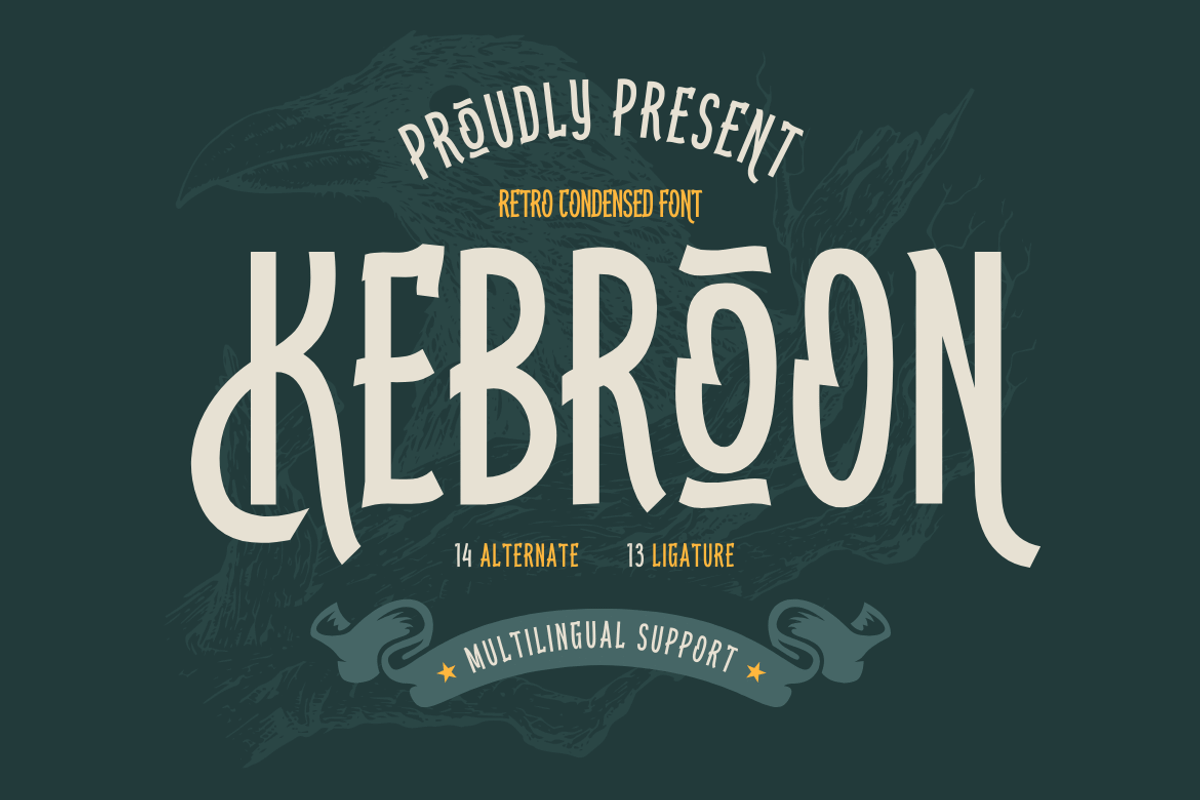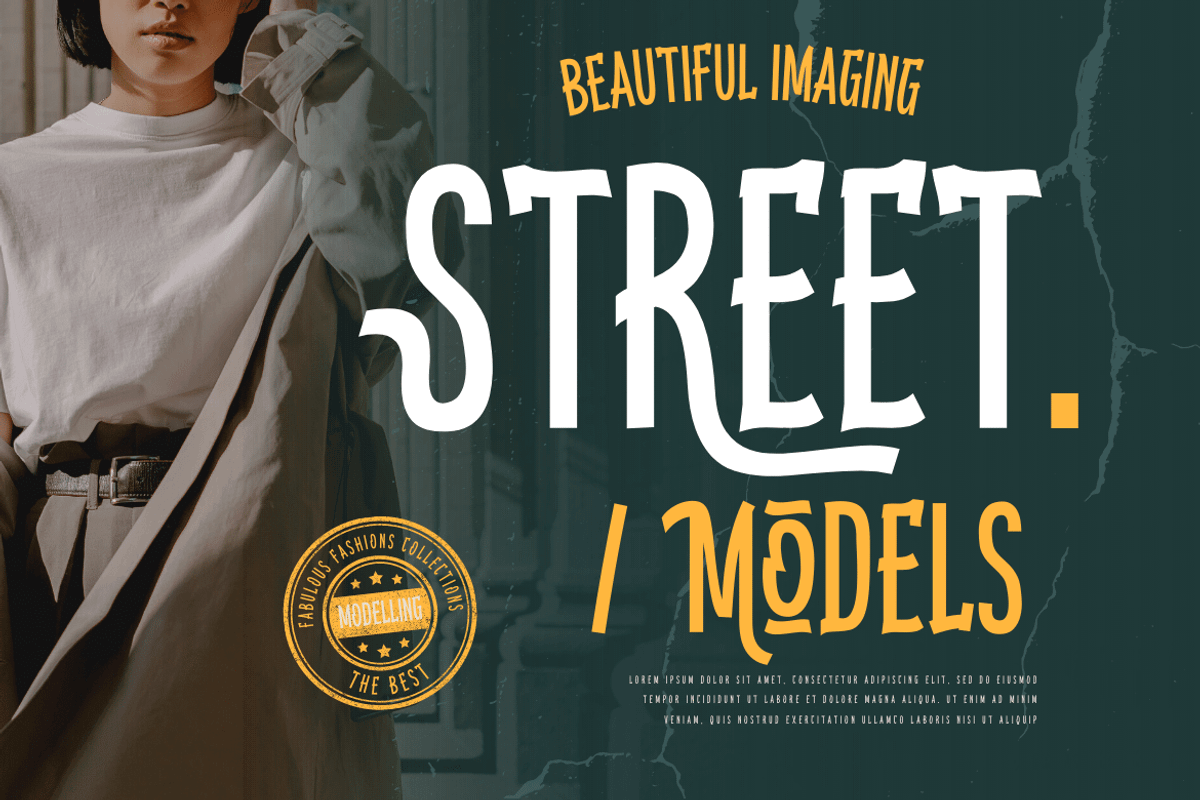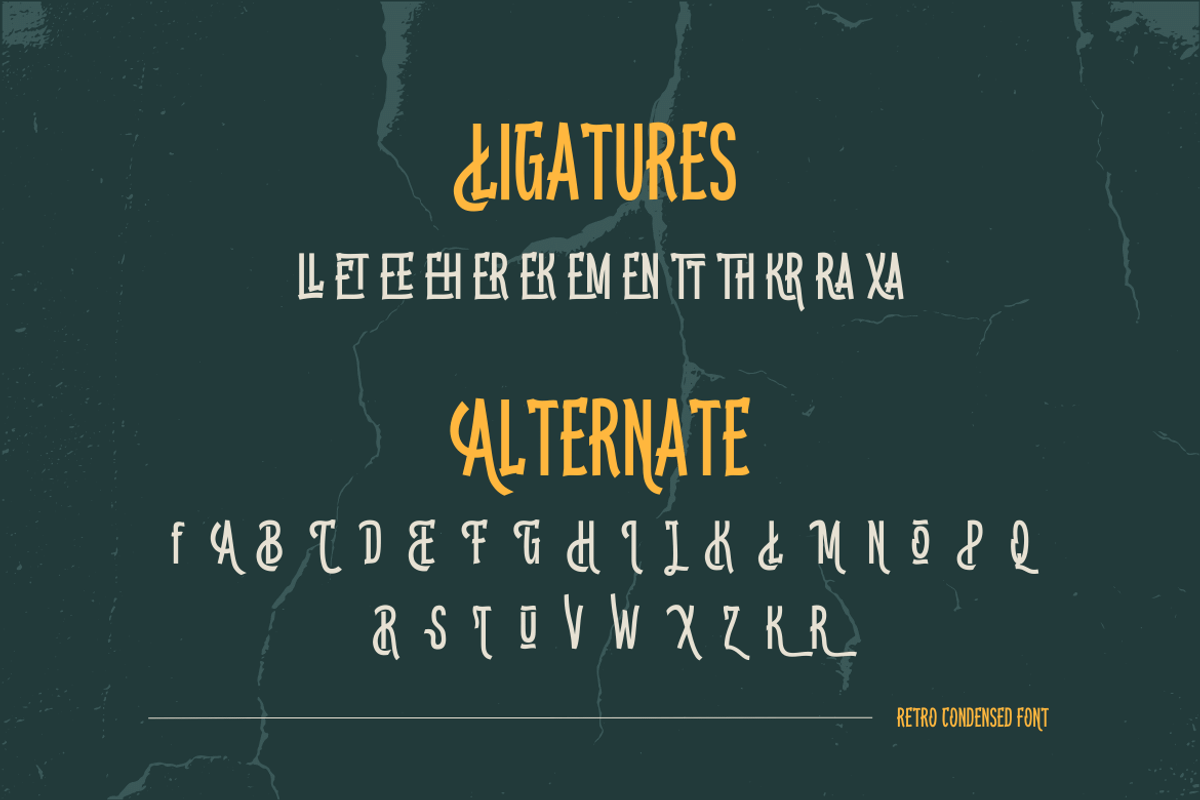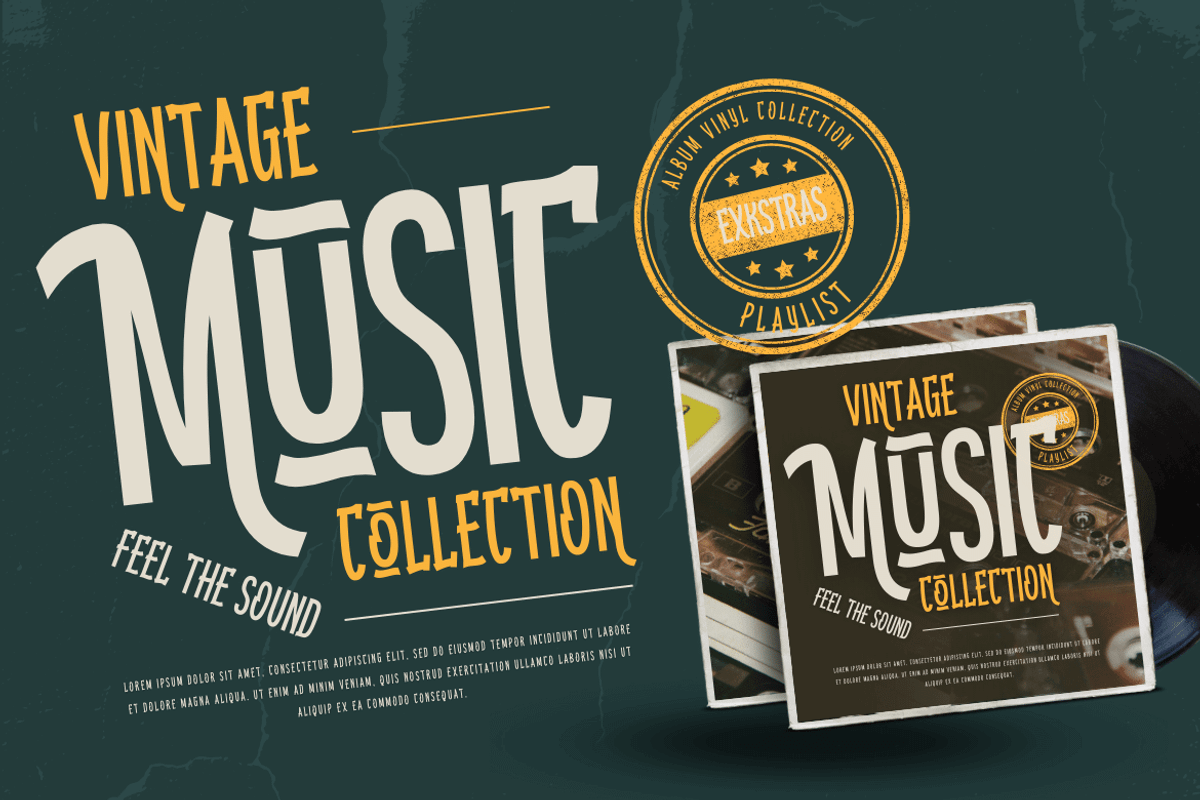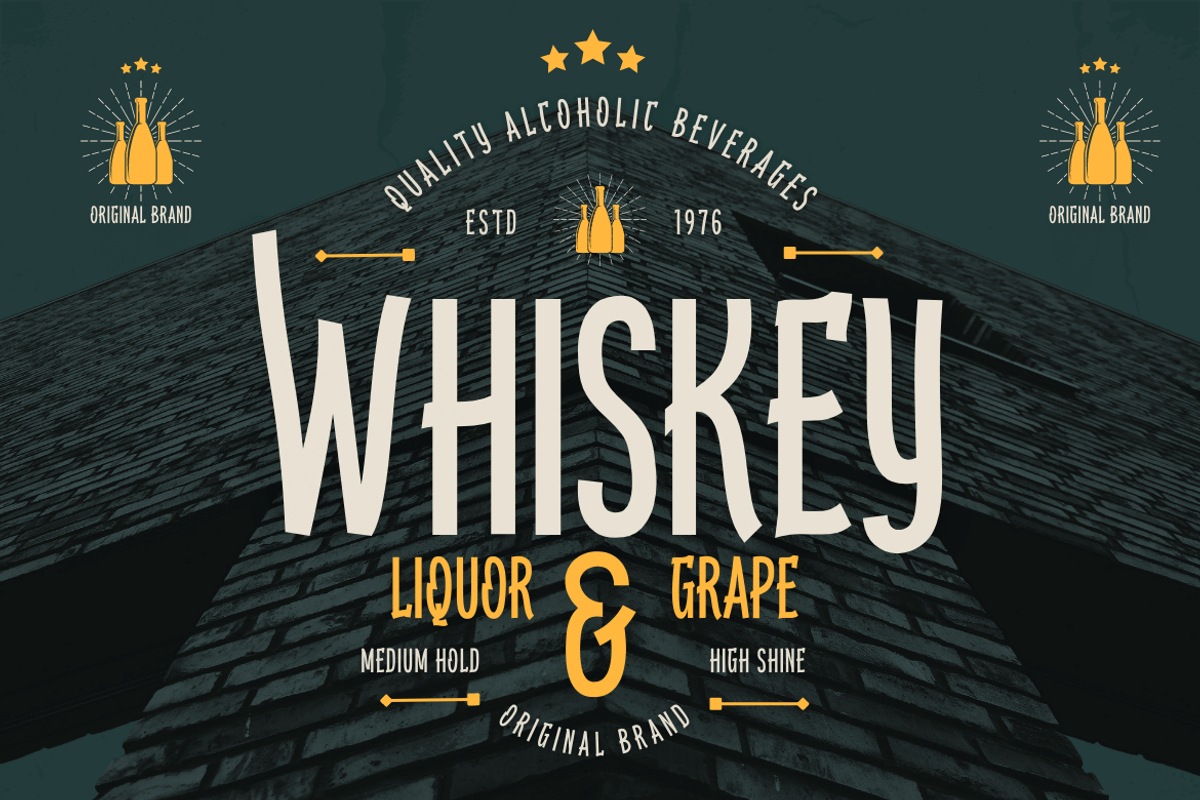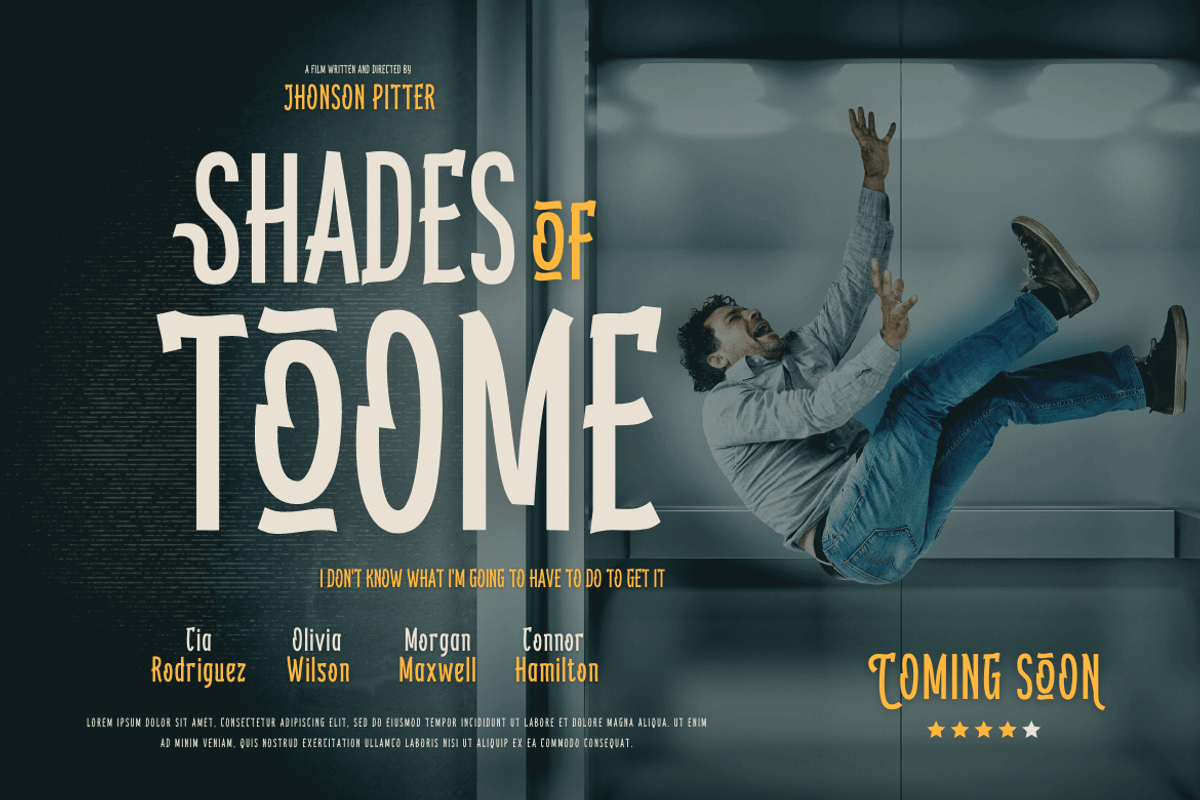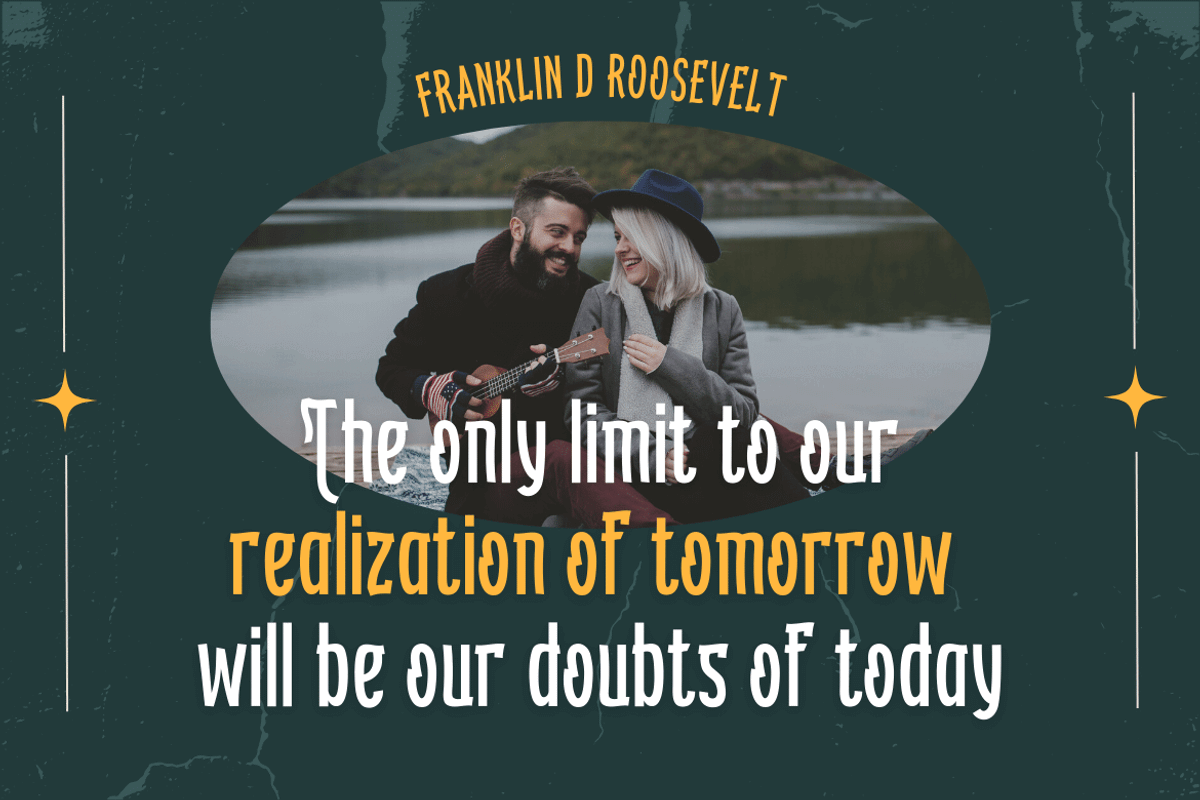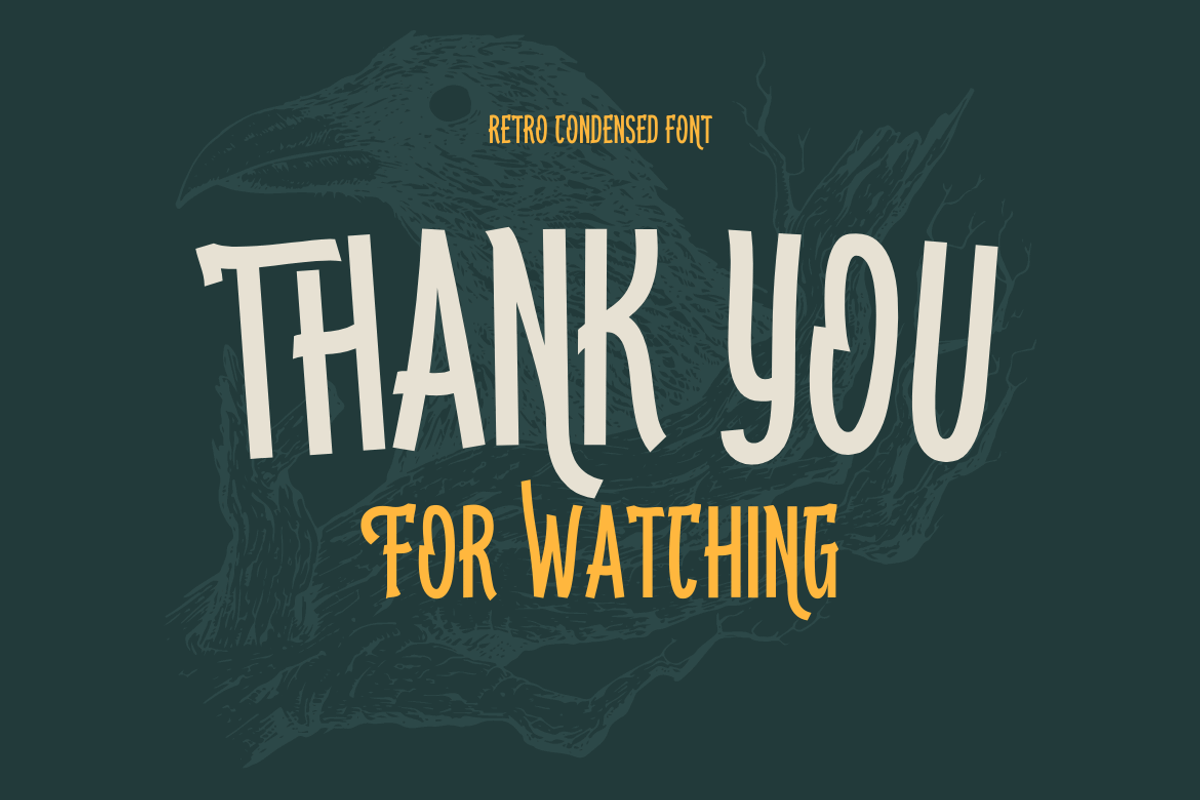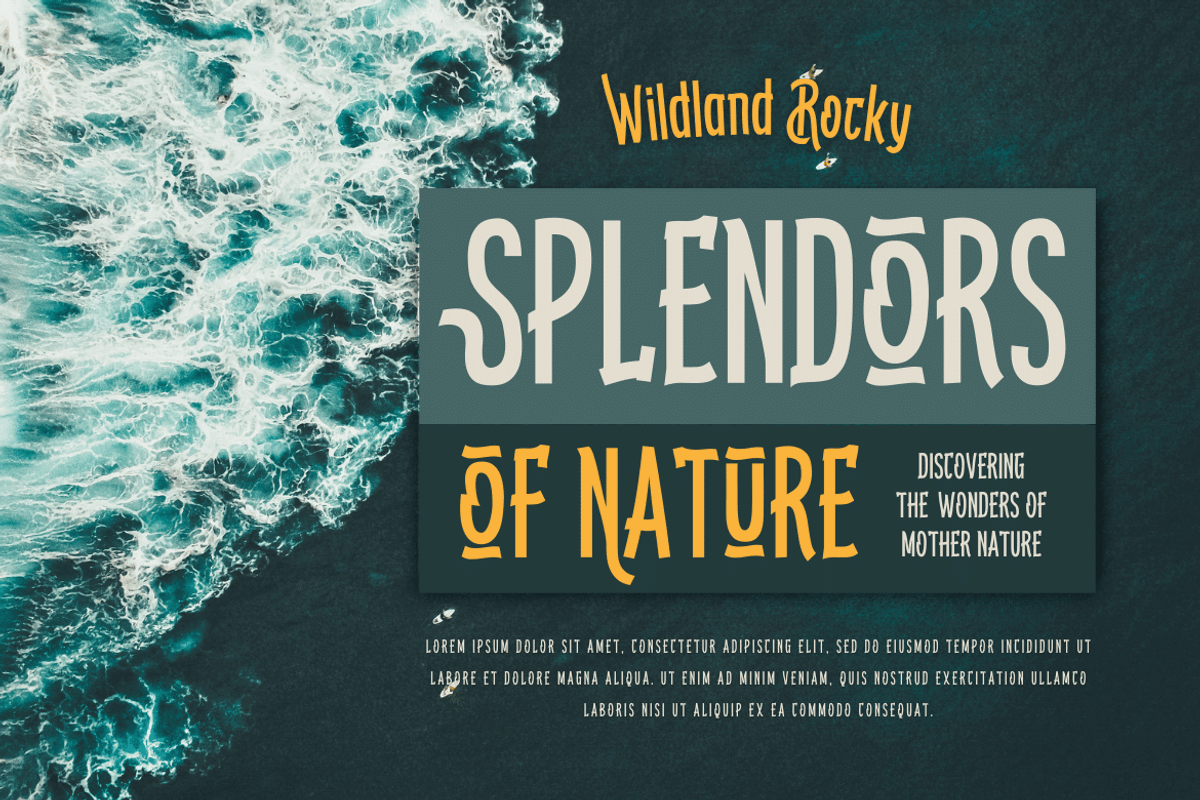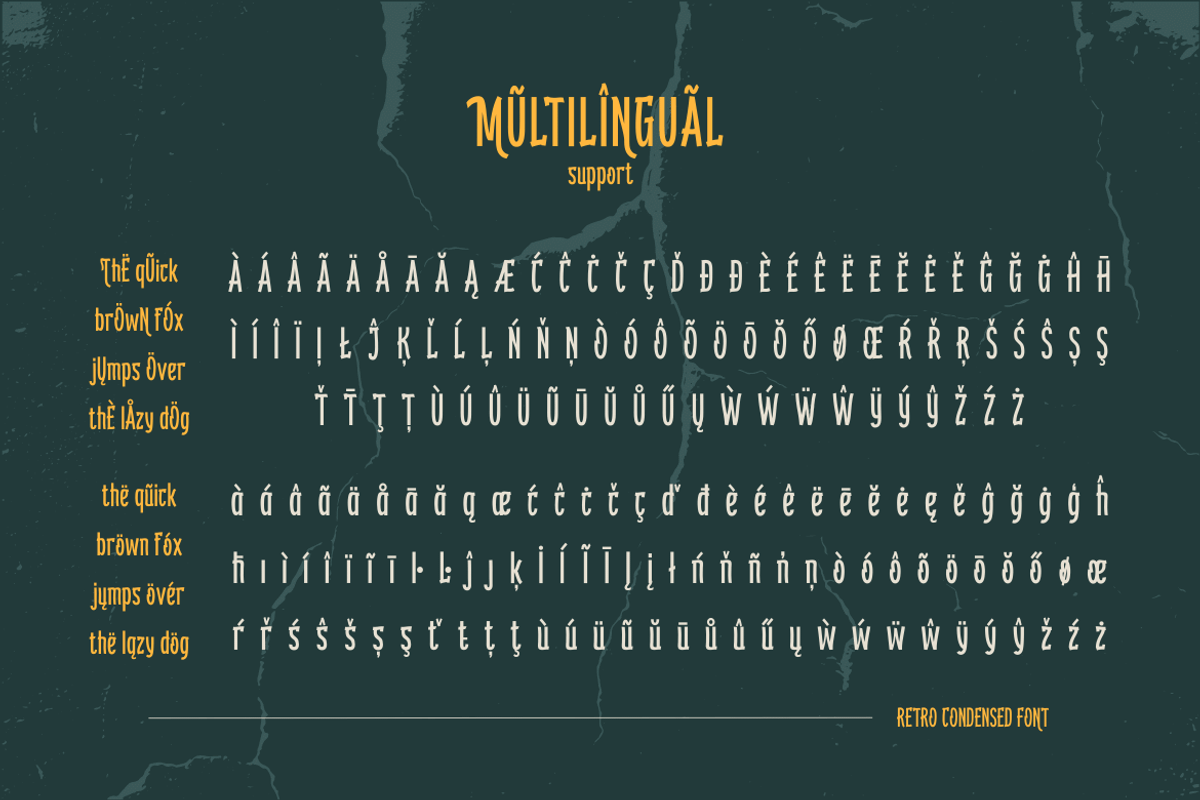
Kebroon | Retro Condensed Font
Introducing the Kebroon font, a stylish and unique retro condensed font perfect for all design themes. With its tall and distinctive form, Kebroon is sure to make a statement in your designs. This font features a stylistic set of alternates and unique ligatures that add a touch of sophistication to any project. Whether you’re creating a film title, a logo, or any other design project, Kebroon is the perfect font to make your work stand out. Get your hands on Kebroon today and elevate your design game!
- Alternate, Ligature